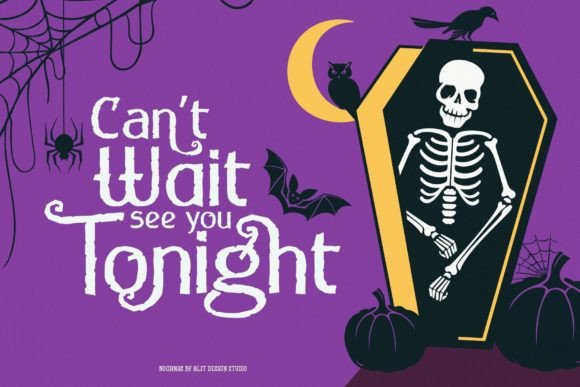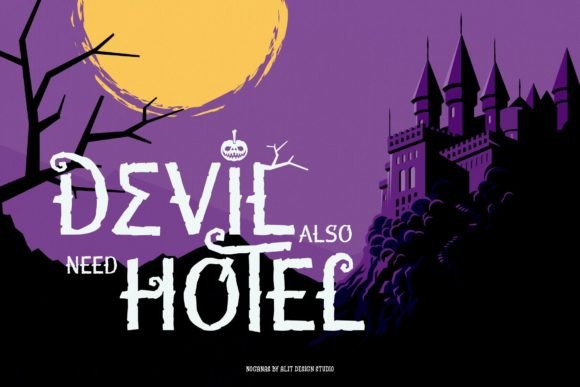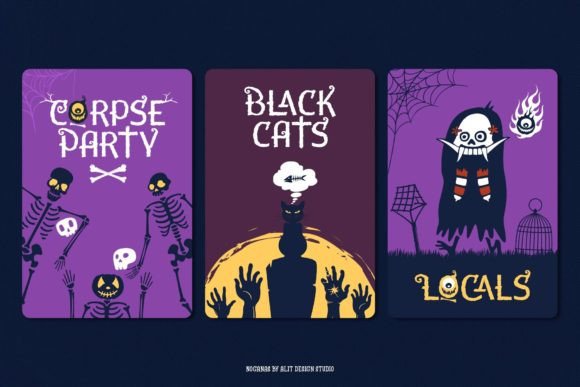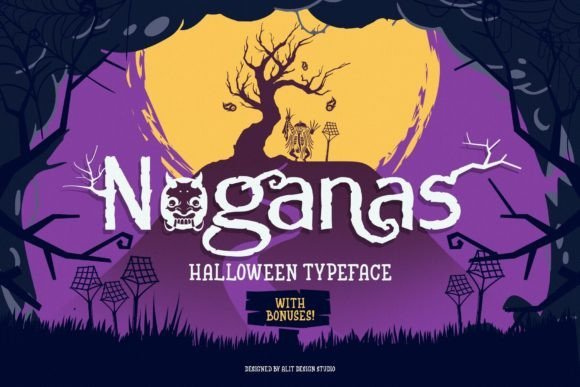
Introduction to Noganas Font
Noganas is a creepy and scary display font.
If you need to create thrilling Halloween designs, horror-themed posters, or just want to give your projects a more dramatic look, this font will be a perfect choice This font is PUA encoded which means you can access all the glyphs and ligatures with ease.
Why Choose Noganas Font?